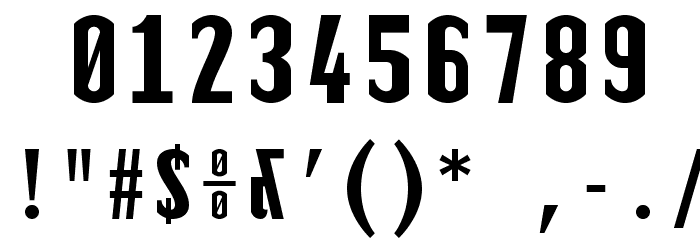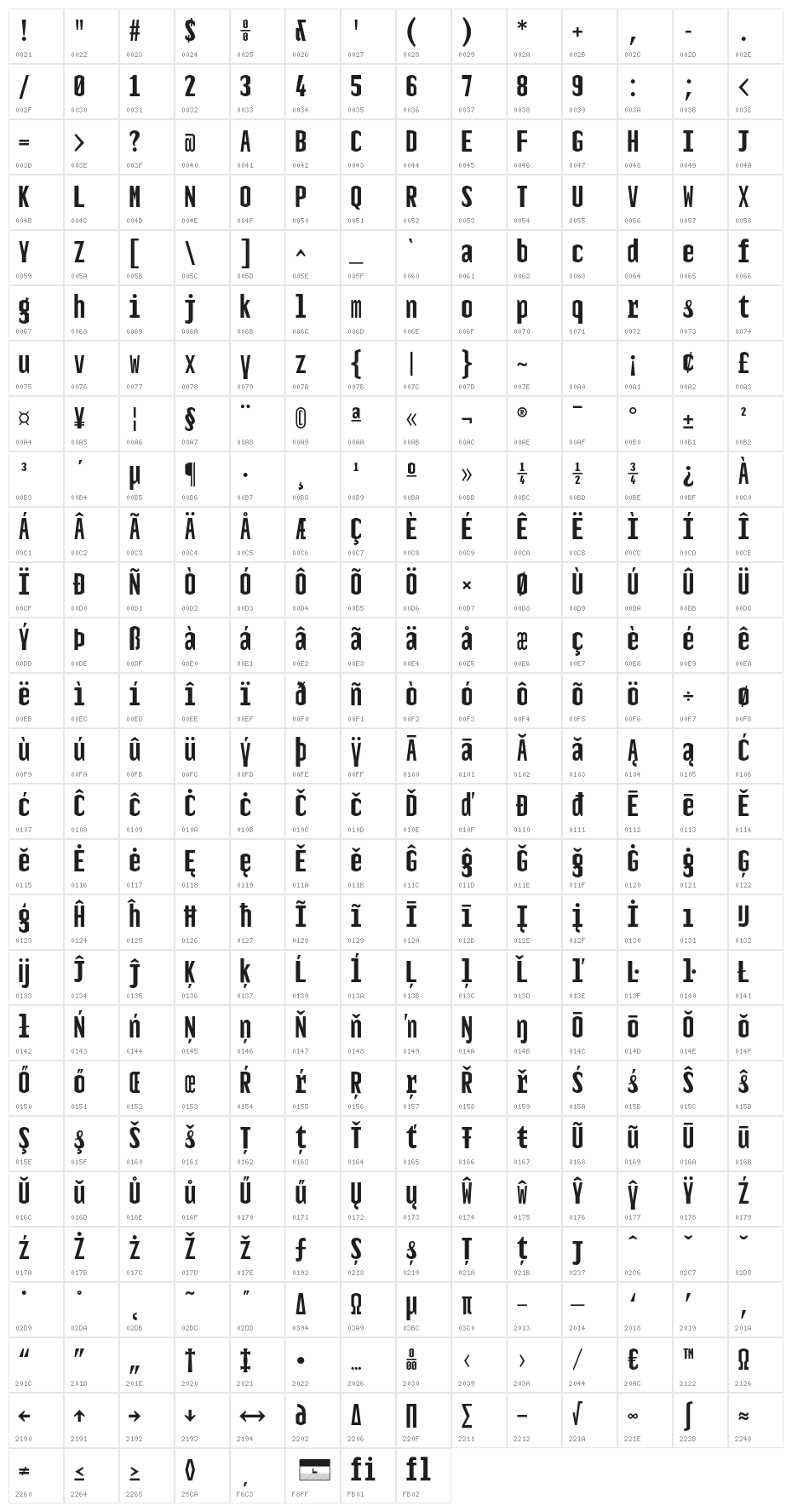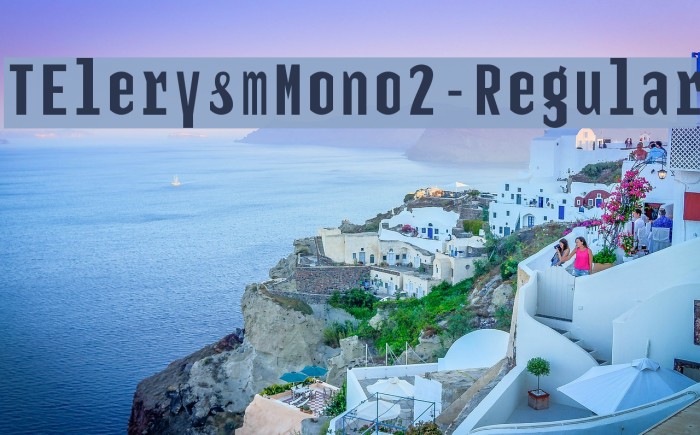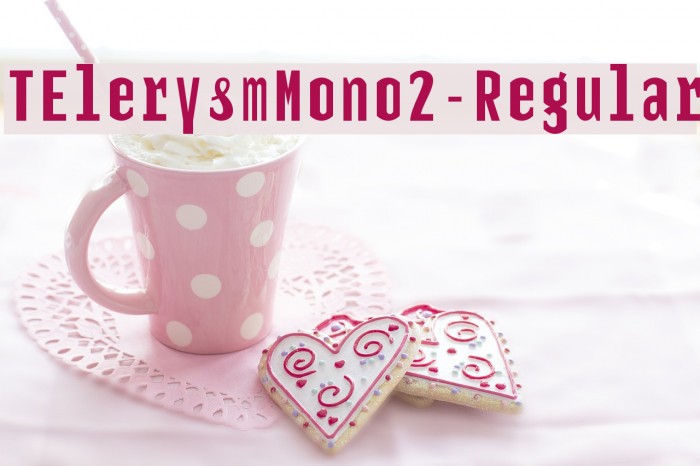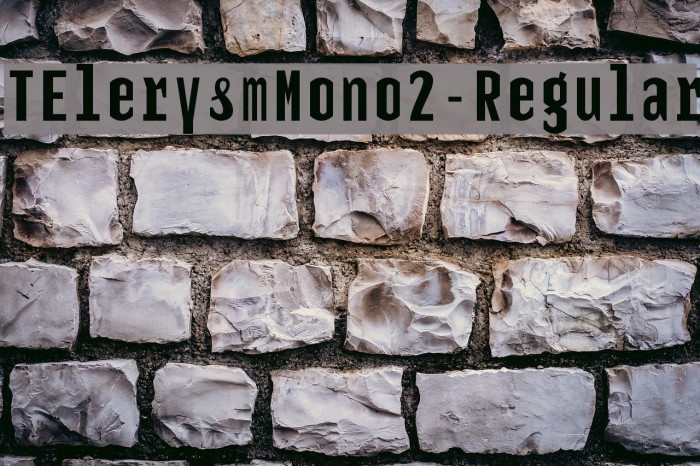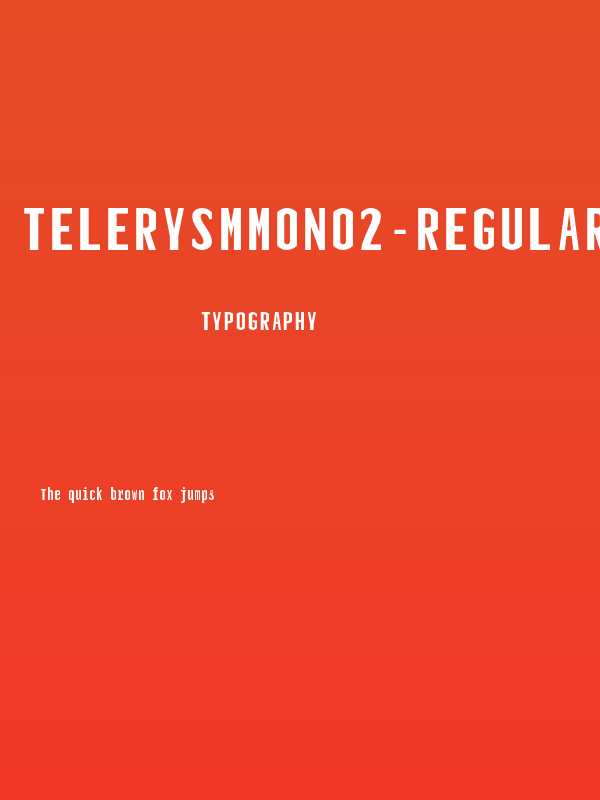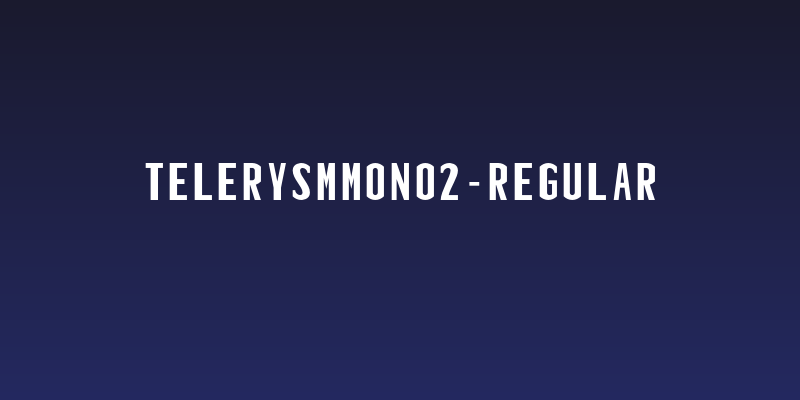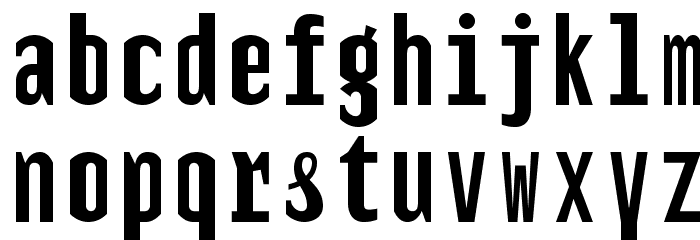
TElerysmMono2-Regular Font
TElerysmMono2-Regular Description
This font features a bold and modern design with a monospaced structure, providing a uniform appearance across all characters. The uppercase and lowercase letters maintain a consistent height, while the numerals and special characters are designed to align perfectly within the grid. The strokes are thick and consistent, giving the font a strong presence. The overall style is clean and geometric, making it suitable for technical or digital applications. The characters are well-spaced, ensuring readability even at smaller sizes. The font's design is both functional and aesthetically pleasing, ideal for projects that require a contemporary and structured look.
| Proposed Projects | Ideal for coding environments, technical documentation, digital interfaces, and modern branding. |